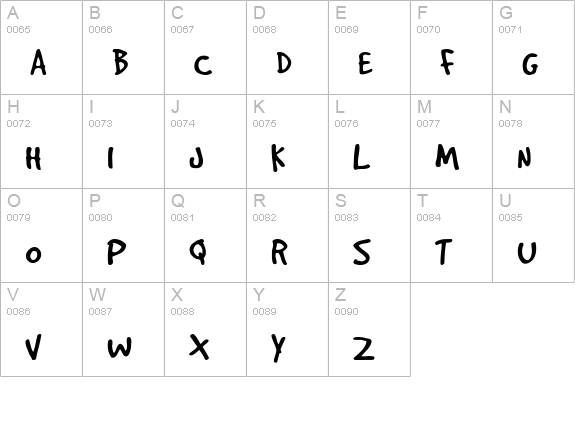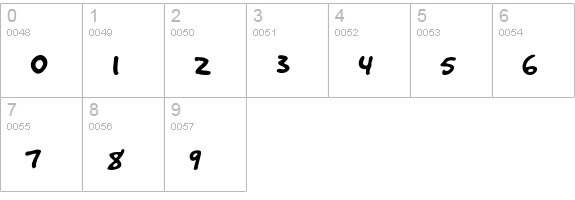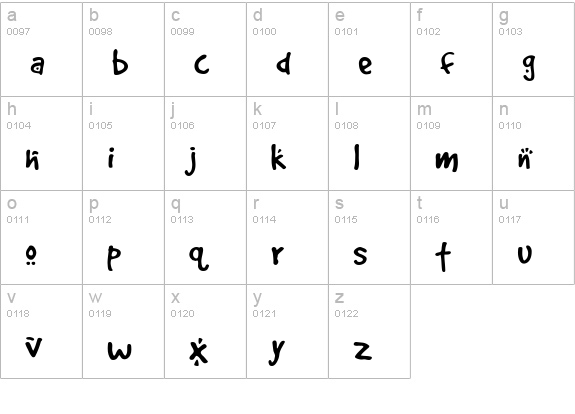
Good Dog Cool font is a playful and charming typeface that exudes a sense of fun and friendliness. With its quirky, hand-drawn style and unique letterforms, Good Dog Cool is perfect for adding a touch of personality to any design project. This font is freely available to download at FontsMarket.com, making it easy for designers and creatives to access and use in their work. Whether you're creating invitations, posters, logos, or any other design project, Good Dog Cool font is sure to bring a touch of whimsy and charm to your designs. With its bold and energetic appearance, Good Dog Cool font is a versatile choice for a wide range of applications. So why wait? Download Good Dog Cool font today and let your creativity run wild!